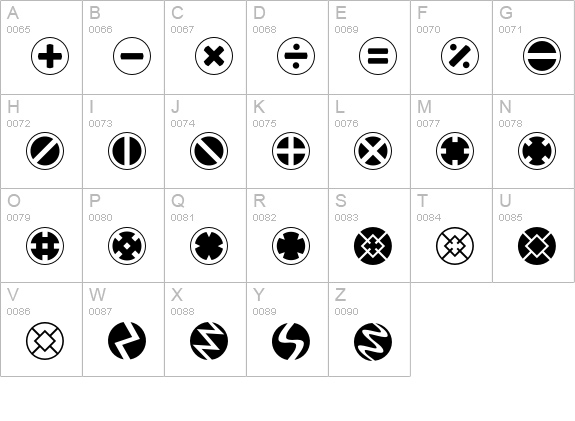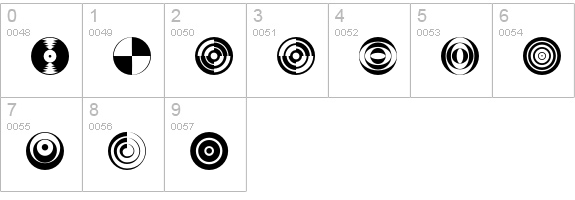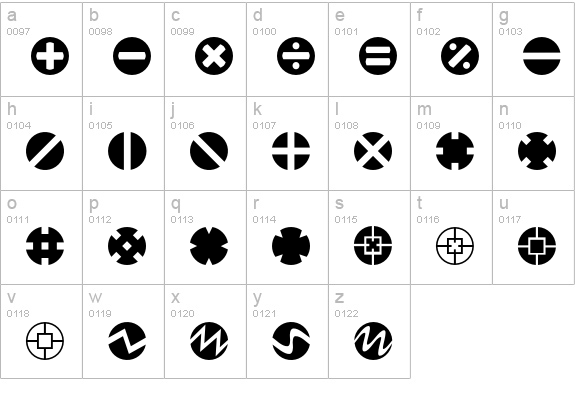
AltemusRounds Font Details
AltemusRounds is a charming and versatile font that adds a touch of whimsy to any design project. With its rounded edges and playful appearance, this font exudes a sense of warmth and friendliness. Whether you're creating invitations, posters, or branding materials, AltemusRounds is sure to make your text stand out. The best part? AltemusRounds is completely free to download at FontsMarket.com. Yes, you read that right - you can add this delightful font to your collection without spending a dime. So go ahead and give your designs a fresh and fun look with AltemusRounds today!